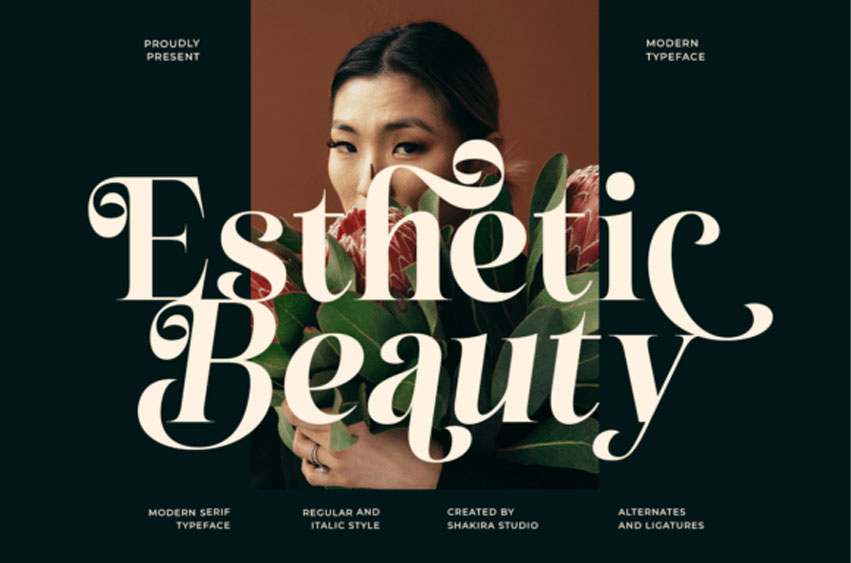
Esthetic Beauty Font
Esthetic Beauty Font is a luxurious modern serif typeface that combines classic elegance with artistic flair. With its high-contrast strokes, graceful curves, and sophisticated alternates and ligatures, this font brings refinement and visual interest to every letter. The swirled terminals and stylish details make it a perfect choice for fashion branding, editorial headlines, packaging, wedding stationery, and upscale logo design.
This typeface includes both Regular and Italic styles, offering flexibility for layered designs and polished compositions. Whether you’re designing for print or digital, Esthetic Beauty adds a timeless yet contemporary character to your projects, embodying elegance, femininity, and bold creativity.
Use Cases:
Branding, fashion editorials, packaging, wedding invitations, and logo design.